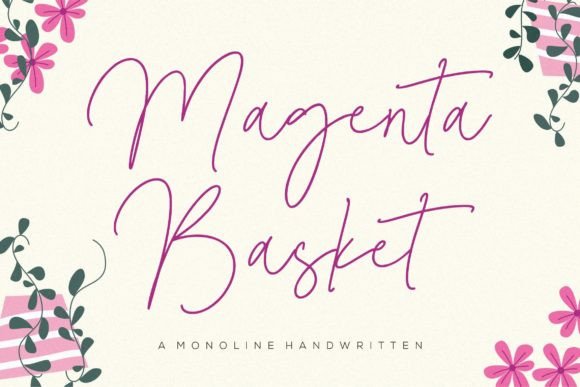
Dive into the enchanting world of Magenta Basket, a monoline handwritten font that exudes elegance, purity, and timeless beauty. Created by the talented Balpirick, this font is a visual masterpiece that effortlessly combines classic charm with a modern twist. Its smooth, effortless lines and understated sophistication make it the perfect choice for those seeking a contemporary aesthetic that transcends the boundaries of time.
With Magenta Basket, versatility knows no bounds. Whether you're crafting logos that demand attention, branding that exudes professionalism, or invitations that radiate warmth and elegance, this font has got you covered. Its adaptability extends to packaging designs that captivate and delight, leaving a lasting impression on your customers.
As a script font, Magenta Basket possesses an inherent charm that adds a touch of playfulness and personality to your designs. Its handwritten nature evokes a sense of authenticity and warmth, creating a connection with your audience that goes beyond mere aesthetics. Imagine your designs adorned with this font, captivating hearts and igniting imaginations.
Step into a world of endless creative possibilities with Magenta Basket. Let your imagination run wild as you explore the myriad ways in which this font can transform your designs. Its simplicity and refinement make it the perfect canvas for your artistic expression, allowing your designs to shine with a distinct and memorable flair.